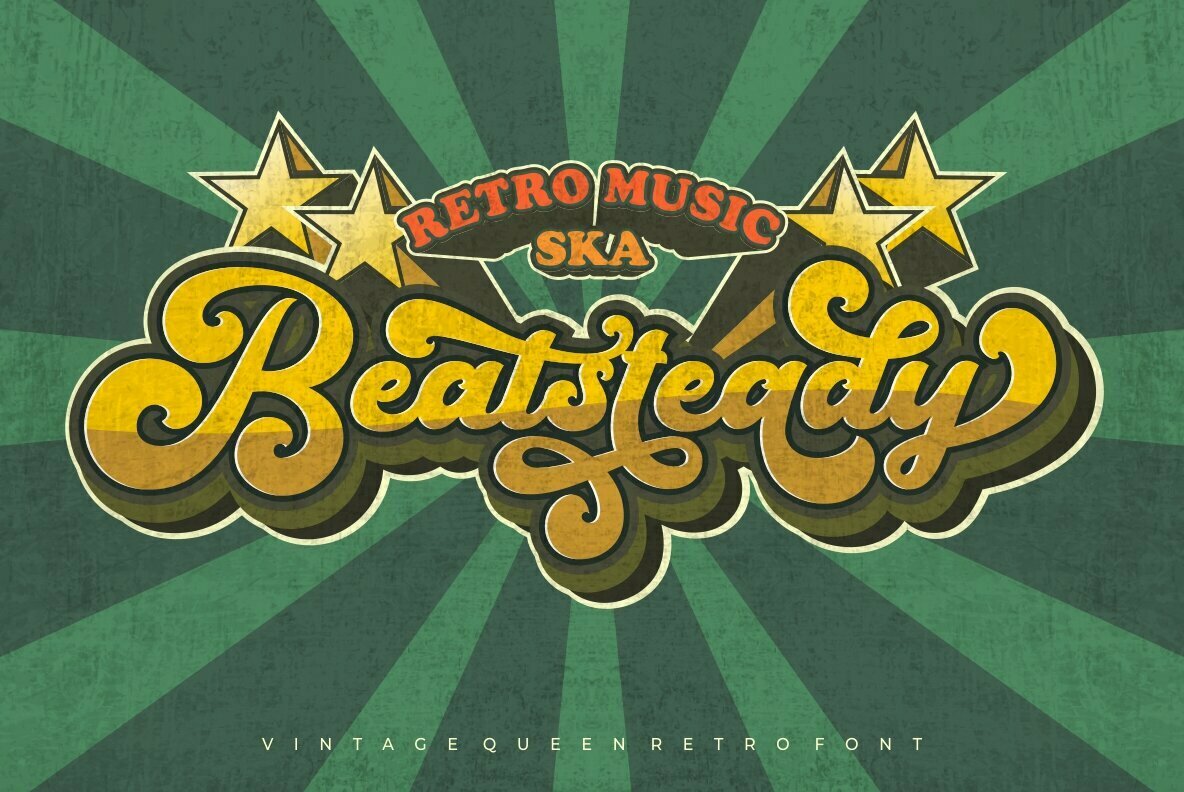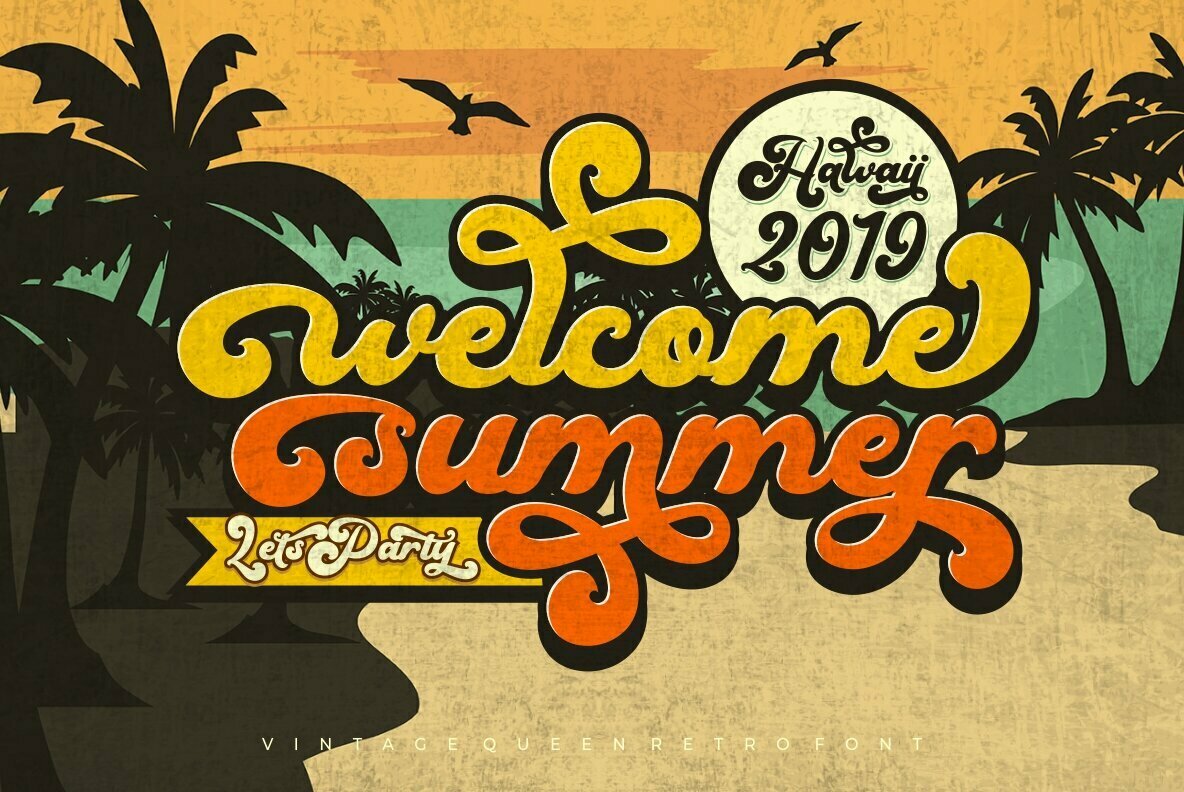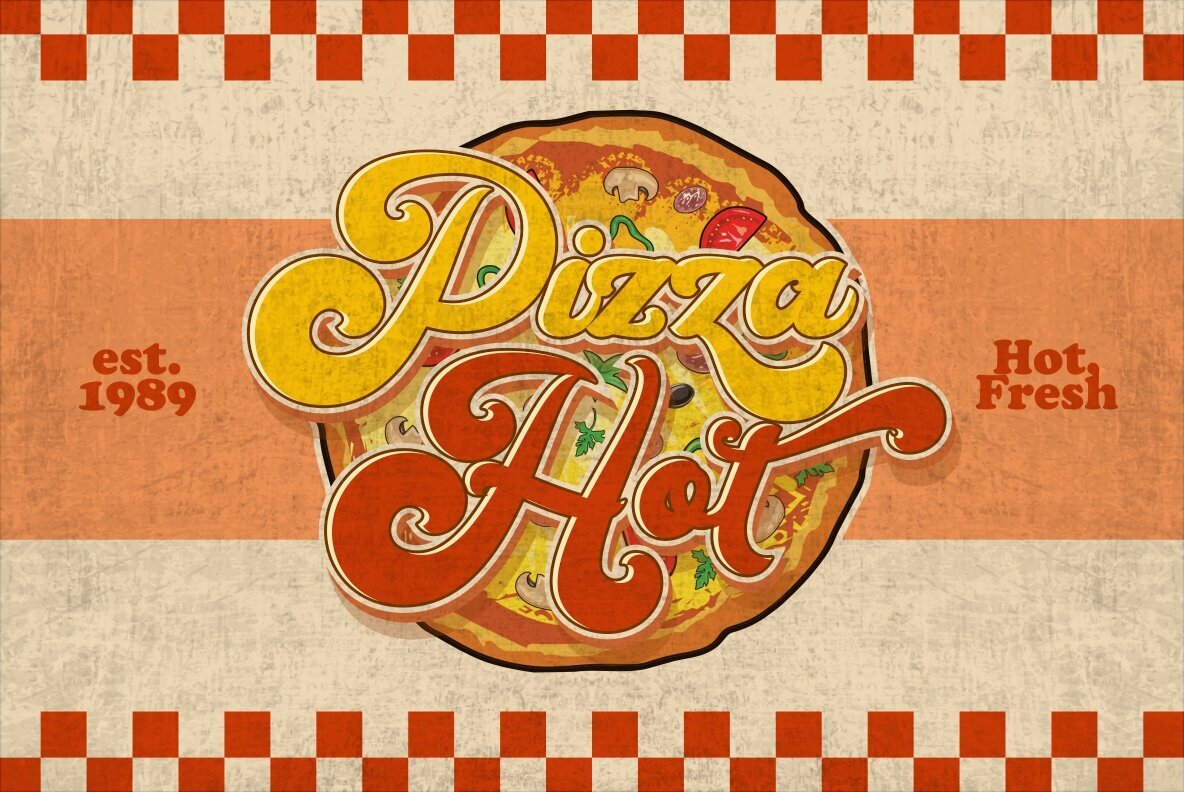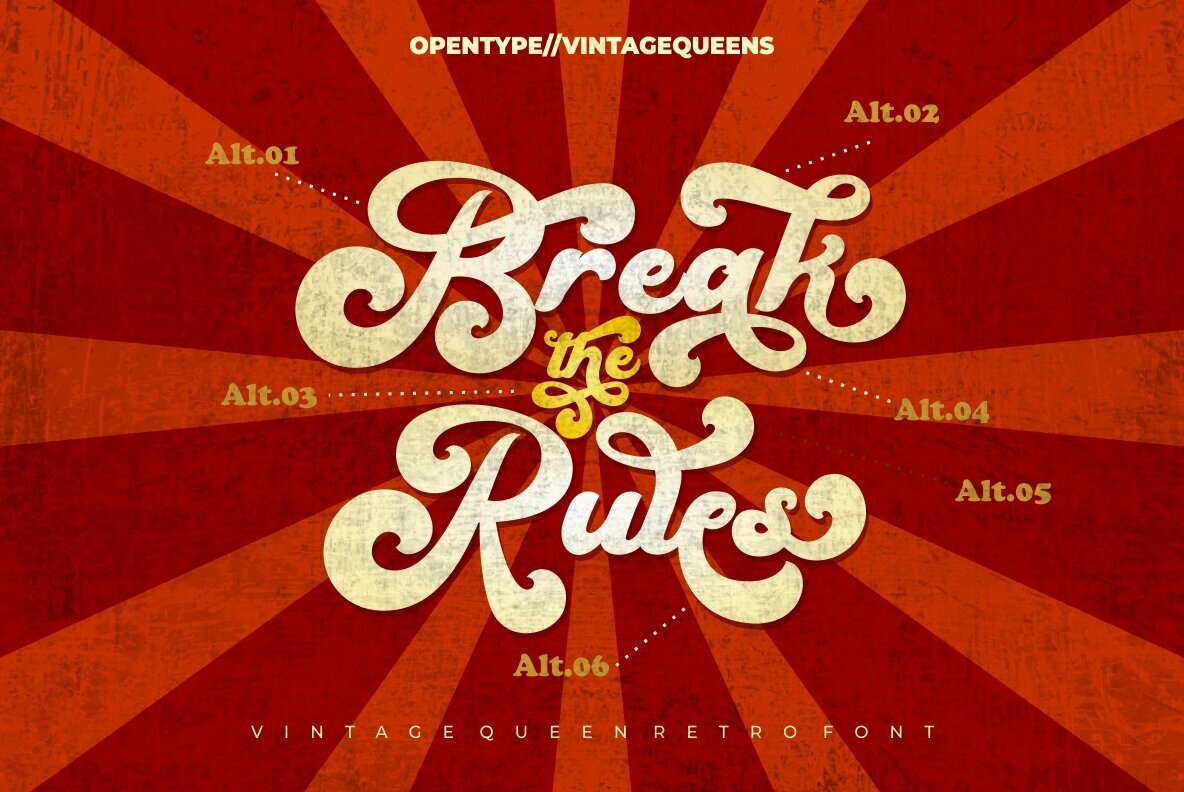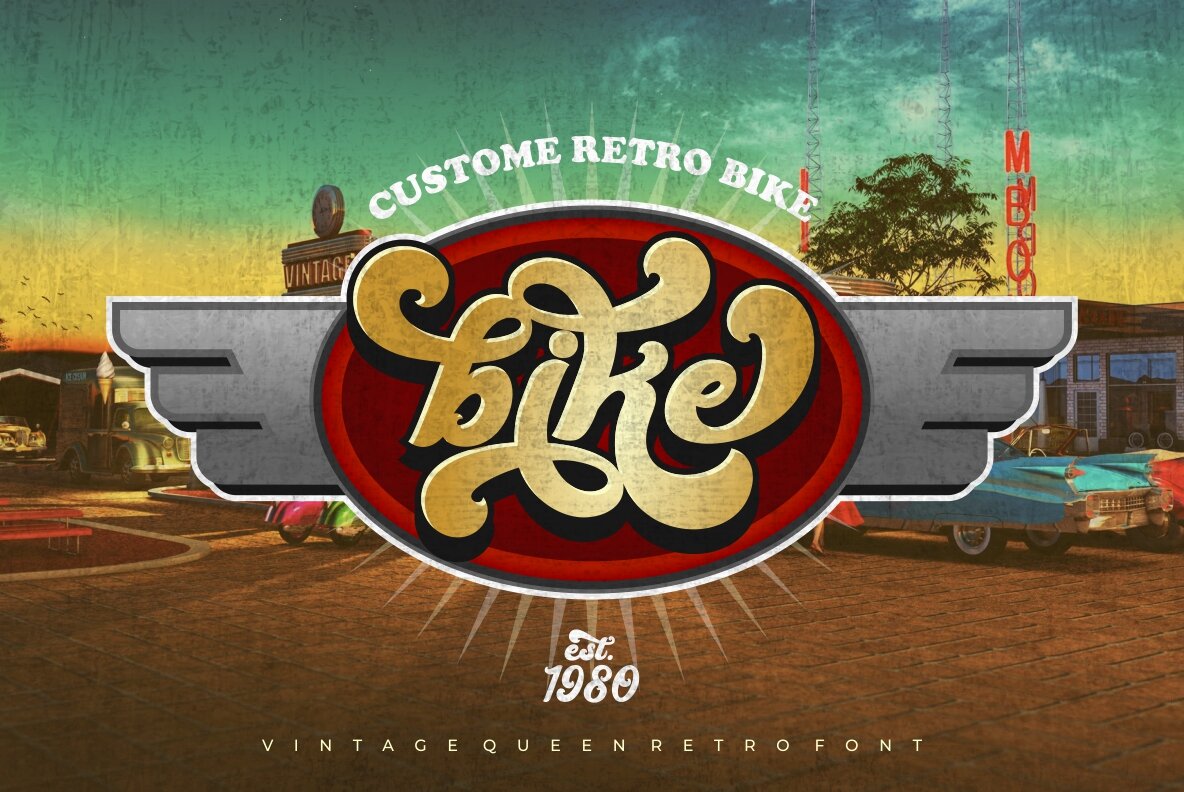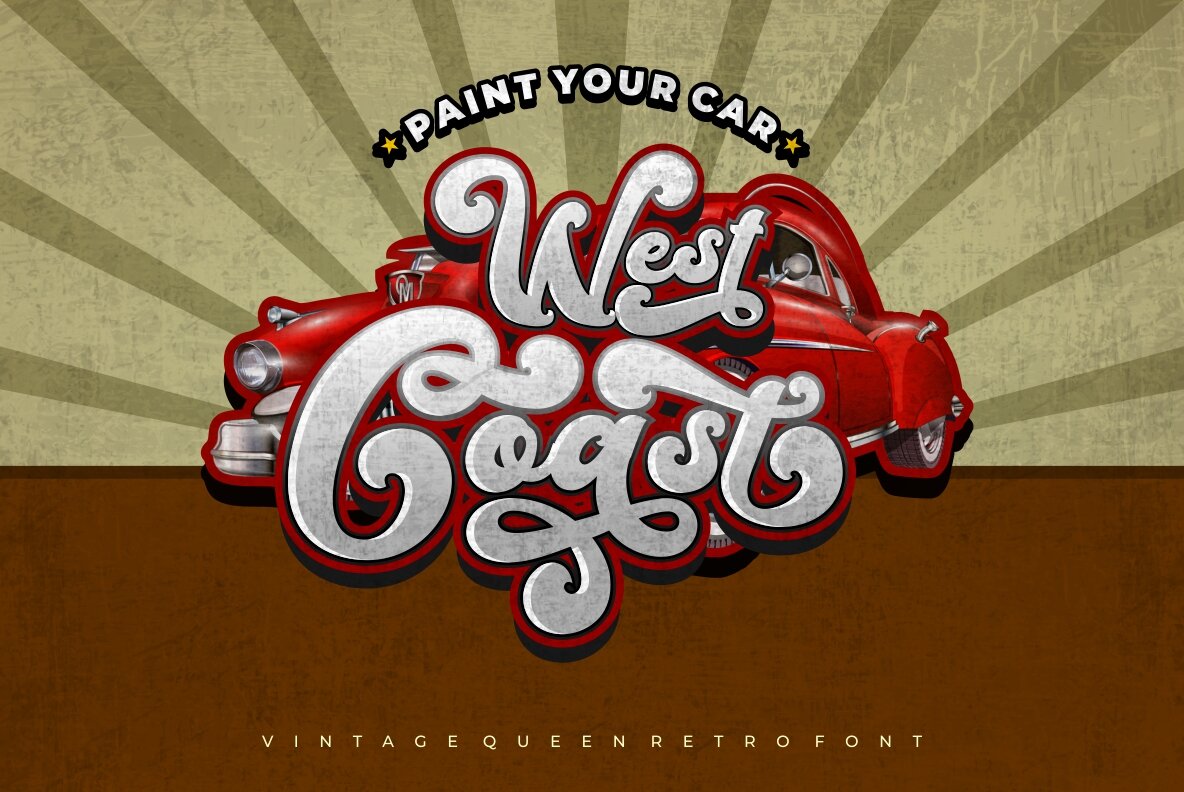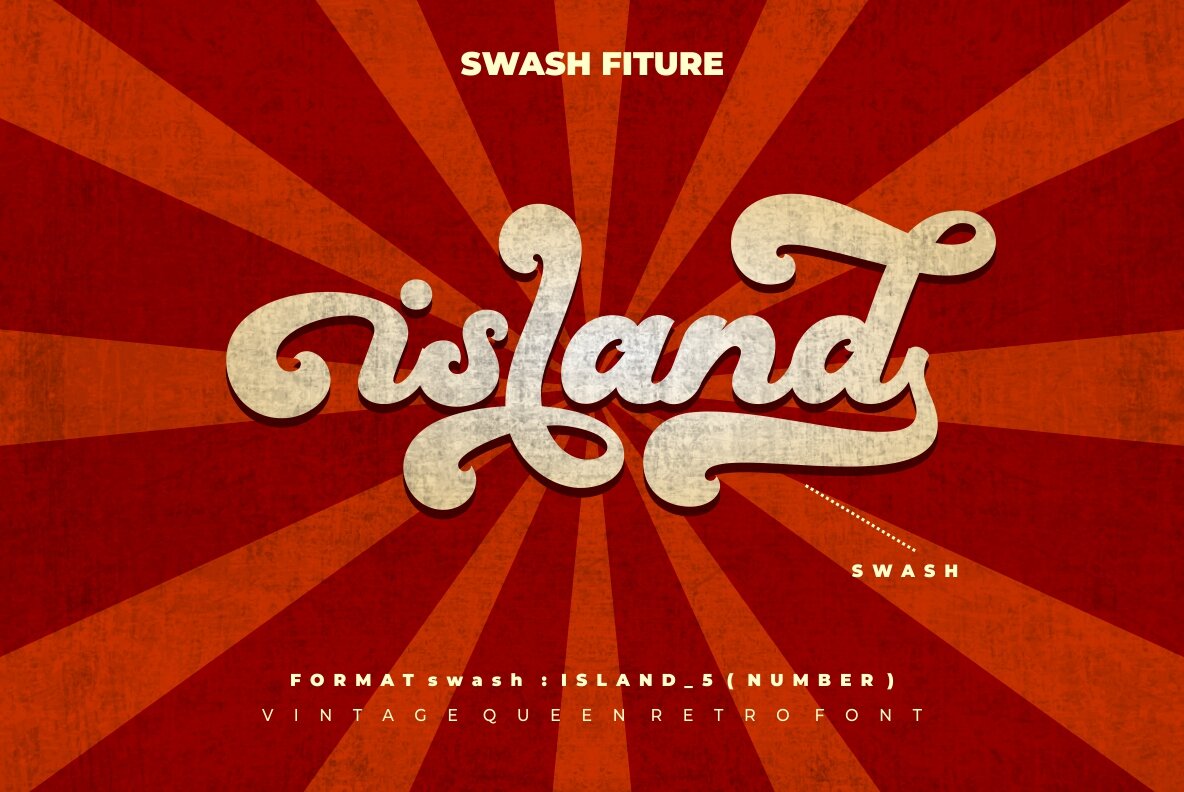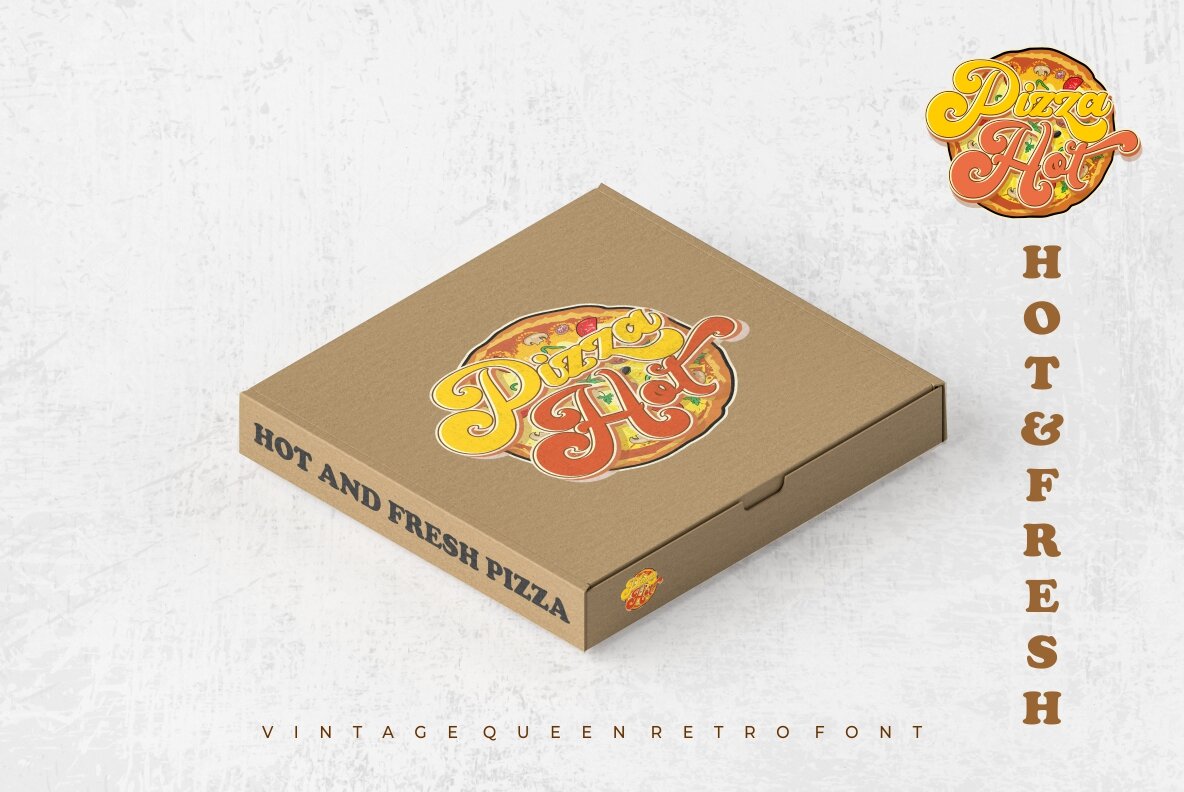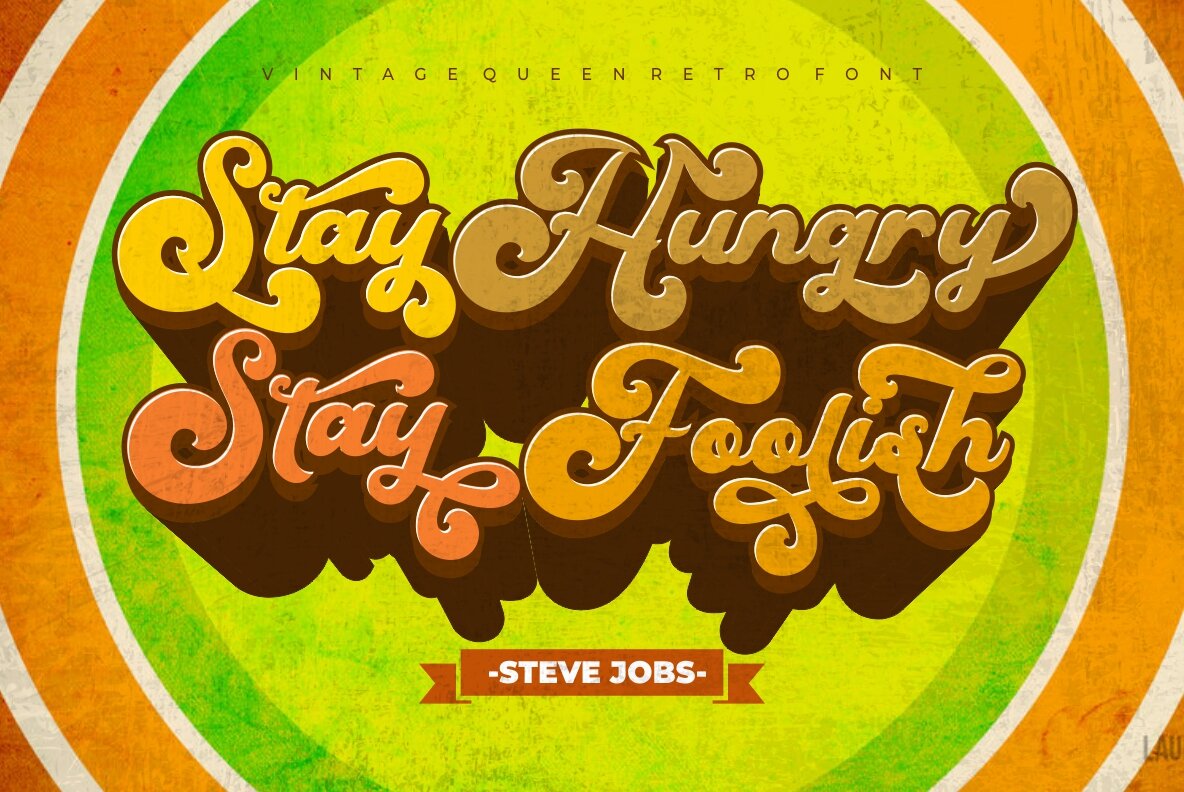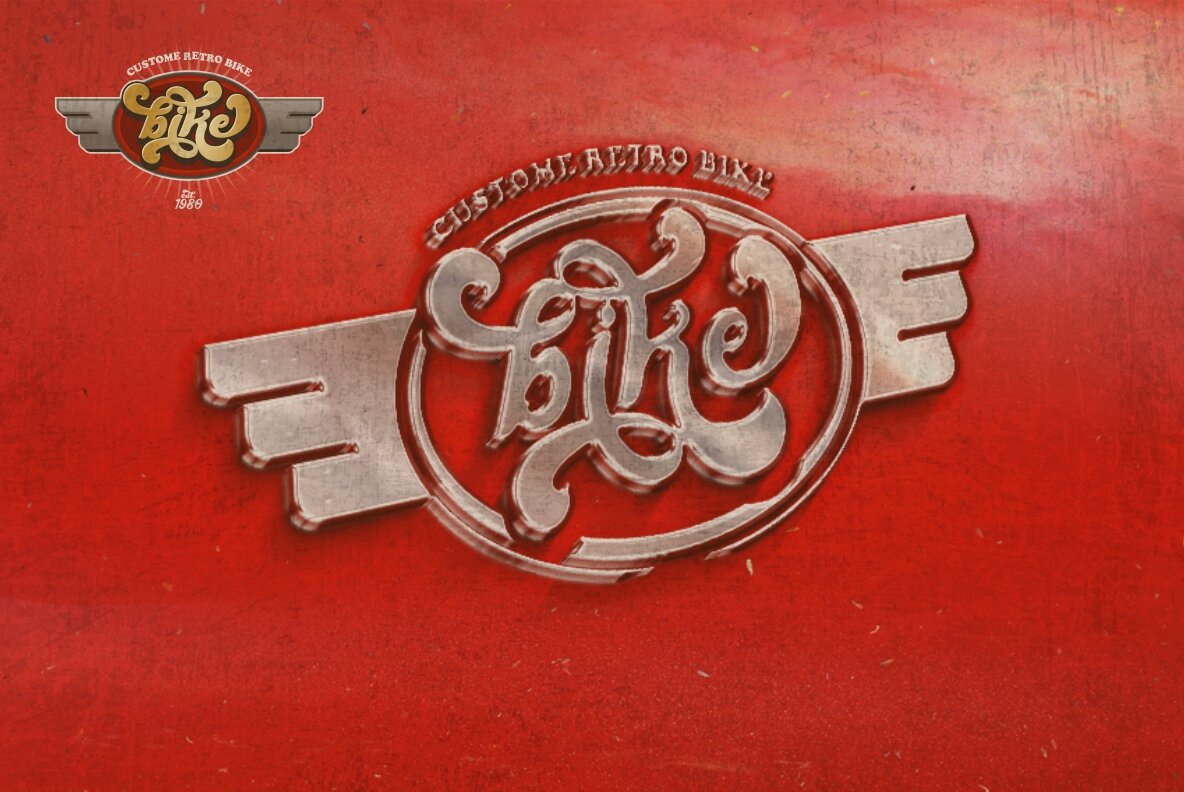
Vintage Queens Font
Vintage Queens
Dive into the captivating world of retro typography with Vintage Queens, a bold script font that channels the spirited aesthetics of the 1970s and 80s. This typeface boasts an impressive catalogue of 534 glyphs, including 359 alternates, allowing for an extensive range of letter combinations to enrich your design projects. Designed to ease the process of creating stunning typographic compositions, Vintage Queens comes equipped with OpenType features that include a rich selection of alternates and end swashes. This font is particularly suited for diverse applications, ranging from logotypes and headings to posters, logos, quotes, product packaging, and more. Vintage Queens excels in any situation where bold and nostalgic typographic style is desired. Please note that the extrude and shadow effects seen in previews are solely for display purposes and are not part of the font package. To maximize the potential of the alternate glyphs, ensure your design software supports OpenType features such as Adobe Illustrator, Photoshop, InDesign, or Corel Draw.Vintage Queens: Bold Script Embracing Retro Charm